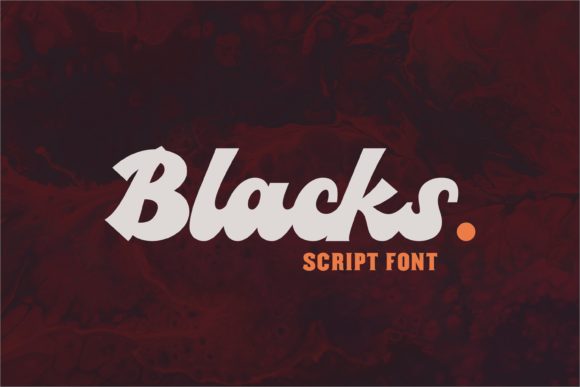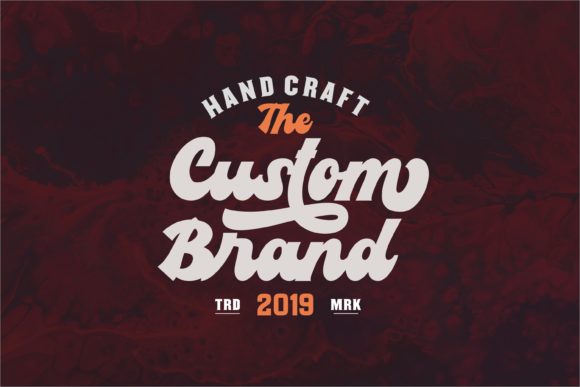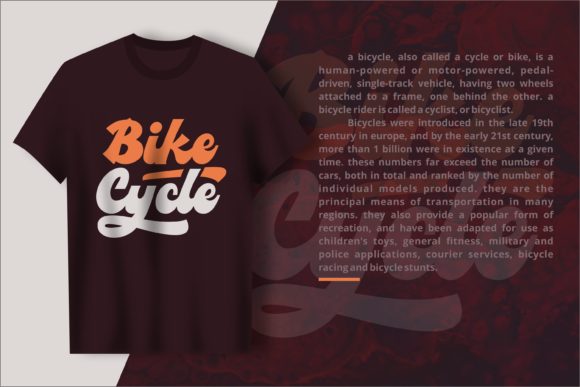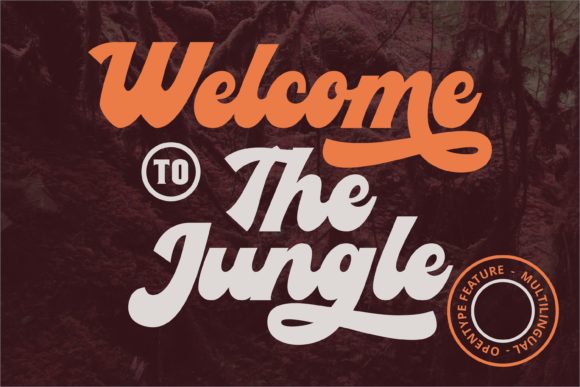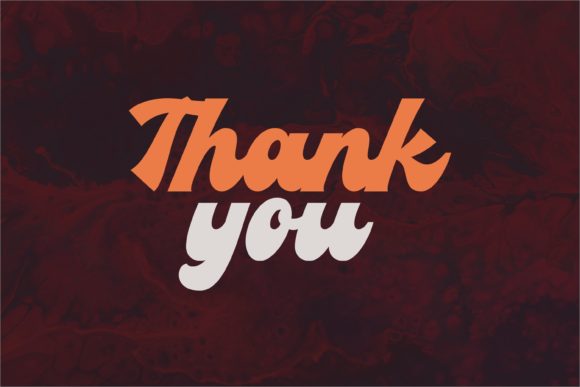
HomeScript FontsBlacks Font Script Fonts Blacks Font FacebookXPinterestWhatsApp Blacks Font Poster 2 Blacks Font Poster 3 Blacks Font Poster 4 Blacks Font Poster 5 About Blacks Font Blacks is a bold and chubby handwritten font with a vintage feel. It will add a unique twist to any design project. DOWNLOAD NOW People also explored Diary Journal Font Skylight Font Terrakota Font Body Font Olivia Font Recline Font Jack Chain Bokeseni SemiBold Condensed Font Laughel Font 348 0 TagsBlacks Font Previous articleBackend FontNext articleMinerals Buble Font LEAVE A REPLY Cancel reply Comment: Please enter your comment! Name:* Please enter your name here Email:* You have entered an incorrect email address! Please enter your email address here Website: Save my name, email, and website in this browser for the next time I comment. Personal Use Free Grillin Personal Use Free Read more about this font Anjhay Personal Use Free Read more about this font Pumpkin Type Halloween Font Personal Use Free Read more about this font Rothwell Personal Use Free Read more about this font BLOG Top 7 Google Fonts Alternatives for Faster and Privacy-Friendly Web Design (2025) Top 7 Google Fonts Alternatives for Faster and Privacy-Friendly Web Design (2025) When it comes to web typography, Google Fonts has long been the go-to... Modern Sans-Serif Fonts That Brands Love in 2025 Exploring Font Trends Fonts That Capture the Spirit of New York City